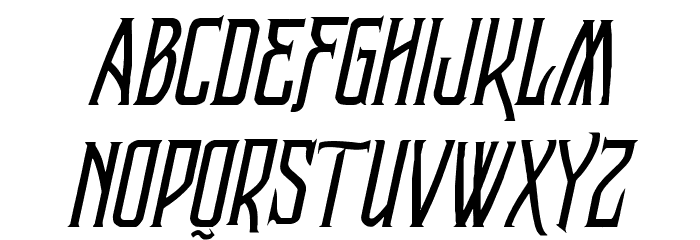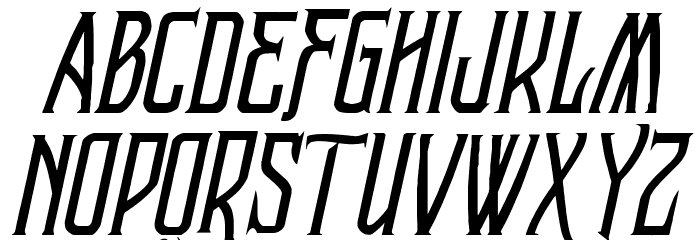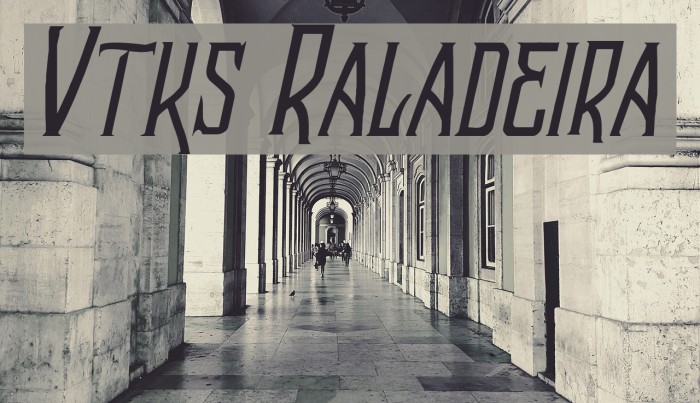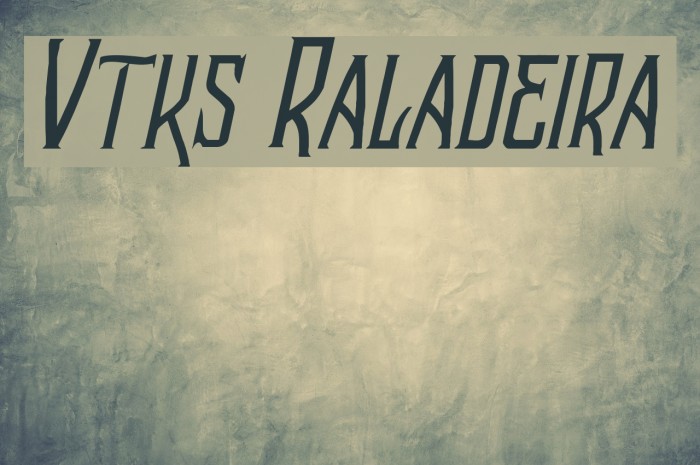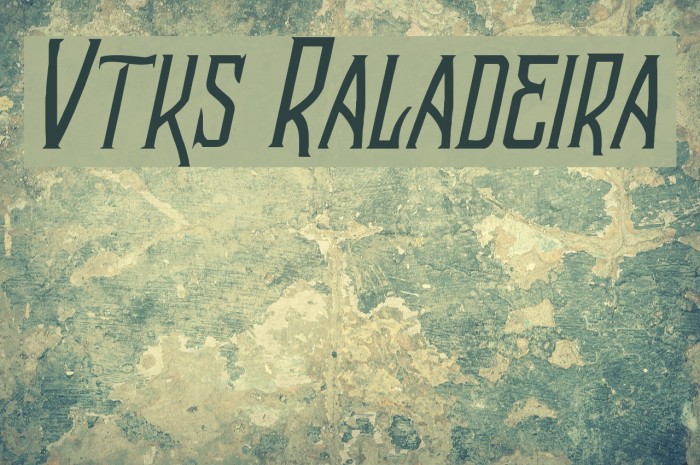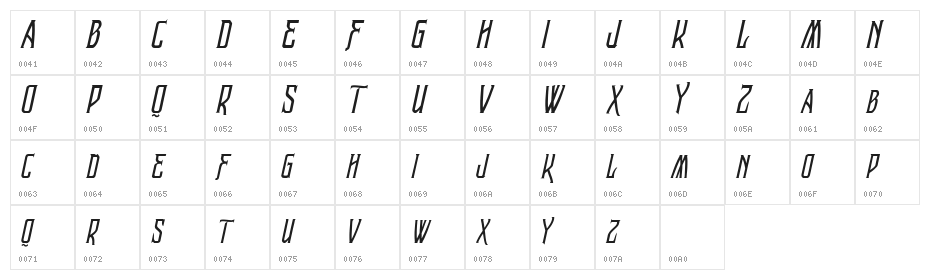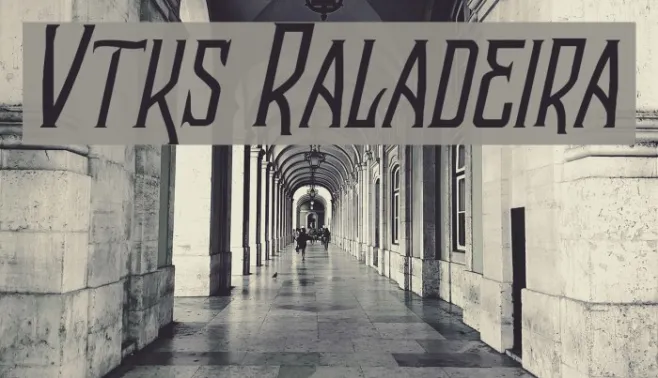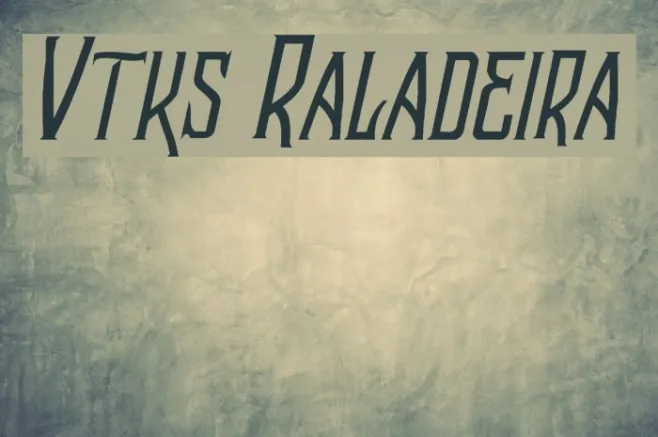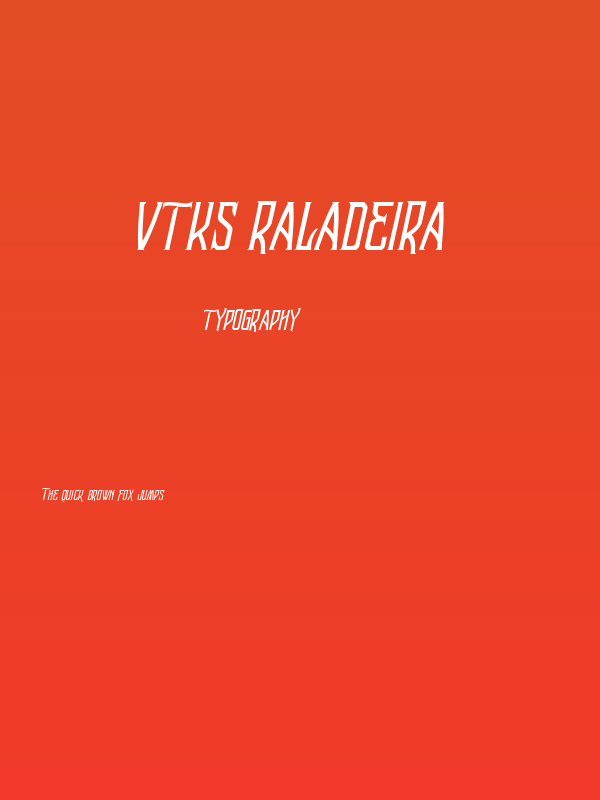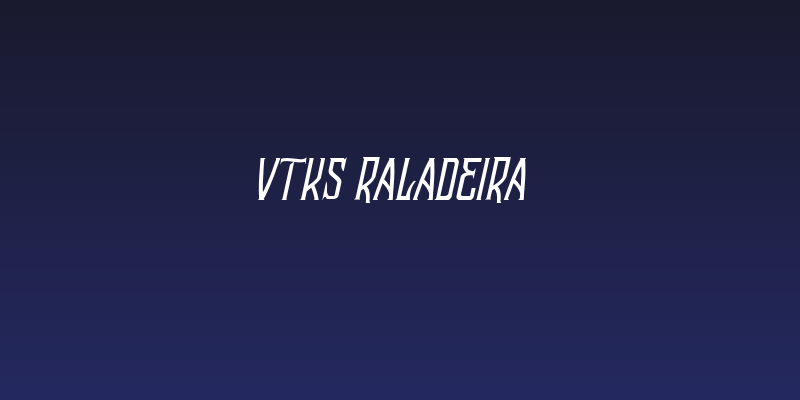
Vtks Raladeira 2 Font
This font features a dynamic and edgy design with sharp, angular lines and a slightly condensed structure. The characters exhibit a unique, almost hand-drawn quality with varying stroke widths that add a sense of movement and energy. The uppercase letters are particularly striking, with elongated forms and distinctive serifs that create a bold visual impact. The overall style is modern and slightly rebellious, making it suitable for projects that require a strong, attention-grabbing typeface.
A dynamic, angular font with sharp lines and a modern, edgy style.
- Proposed Projects: Ideal for music album covers, posters, branding for edgy or alternative brands, and any design needing a bold statement.
- Overall Style: Modern, Edgy